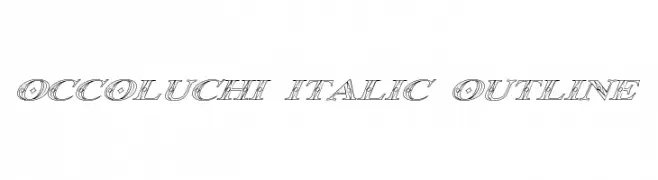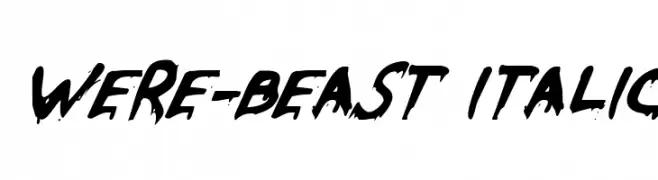
A bold, angular, and slanted font with a futuristic style.
A bold, italicized grunge font with a rugged, distressed texture.
A bold, italic font with sharp angles and a dynamic, modern style.
A bold, italicized outlined font with a modern and dynamic style.
Bold, italicized font with a shadow effect for a dynamic, three-dimensional look.
A bold, 3D italic font with a blocky, dynamic style.
A bold, 3D italic font with a modern, dynamic style.
A bold, italicized font with sharp angles and a modern, geometric style.
A bold, italicized font with angular, modern design and strong geometric structure.
A bold, geometric, and condensed font with a modern industrial style.
A bold, condensed, and italic font with a modern, angular design.
A bold, expanded italic font with a modern, geometric style.
A bold, italicized font with a modern halftone effect.
A bold, italicized font with a halftone effect, offering a dynamic and futuristic look.
A bold, italicized font with a geometric and angular design.
A bold, geometric italic font with a dynamic and modern style.
A bold, angular font with a modern, geometric style.
A bold, geometric outline font with a modern, digital aesthetic.
A bold, outlined, italic font with a geometric and dynamic style.
A bold, geometric outline font with an italic slant, offering a modern and dynamic style.
A bold, semi-italic font with a geometric and dynamic style.
A bold, semi-italic font with angular, geometric characters.
A bold, italicized font with sharp angles and a modern, geometric style.
A bold, italicized font with sharp angles and a geometric style.
A light, elegant italic font with a sophisticated and graceful style.
A bold, italic, geometric font with a modern and mechanical style.
A modern 3D italic font with sharp angles and an outline effect.
A futuristic 3D italic font with outlined characters and a dynamic, modern style.
A 3D semi-italic font with outlined characters and a futuristic style.
A bold, italicized font with a modern, dynamic style.
A bold, semi-italic font with a modern and dynamic design.